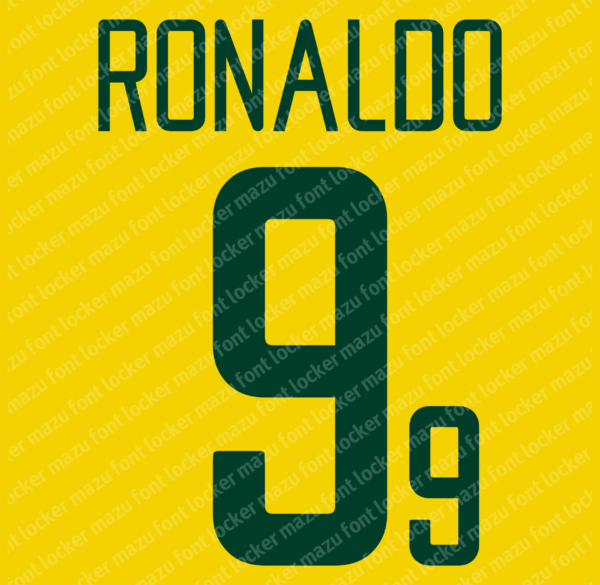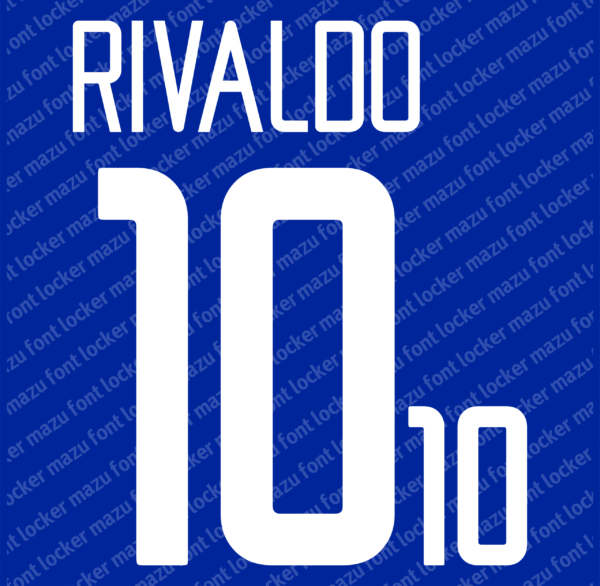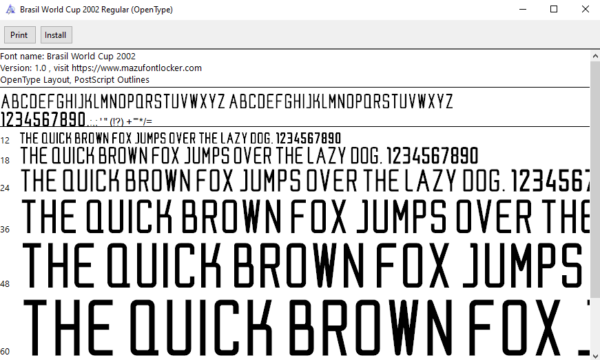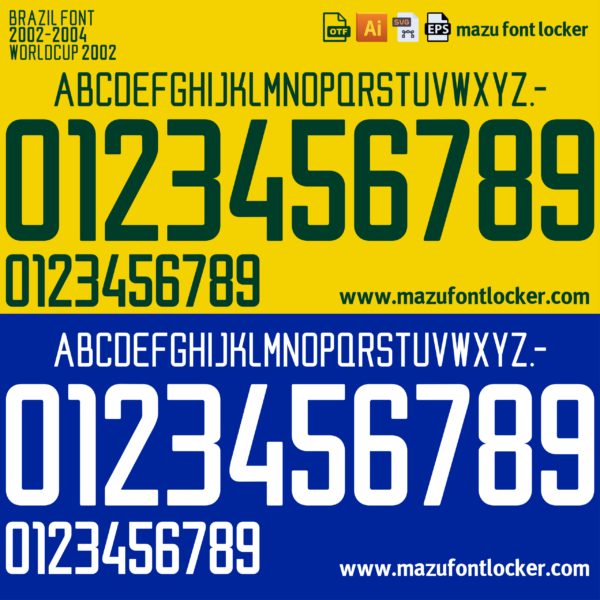
Brazil World Cup 2002 Font Vector – Legendary Canarinho Masterpiece
Download the Brazil World Cup 2002 Font Vector (AI, EPS, SVG, PDF, OTF, TTF) and unleash the bold, vibrant, and legendary match typography from Brazil’s unforgettable 2002 World Cup triumph. This font captures the iconic Yellow & Green lettering that defined the Seleção’s fifth world title.
Channeling the proud Brazilian spirit of the magical Japan/Korea campaign, it features the classic style worn by legends like Ronaldo Nazário, Ronaldinho, Rivaldo, Cafu, Roberto Carlos, and Kaká. Perfect for retro jersey mockups, football designs, and nostalgic Brazil World Cup art.
Brazil World Cup 2002 Font Vector – Canarinho Typeface
The Brazil World Cup 2002 Font Vector is a premium typeface that faithfully recreates the iconic lettering from the Brazilian National Team’s 2002 FIFA World Cup kit. This vector font kit captures the bold, vibrant, and legendary typography worn by the champions of the 2002 World Cup.
Designed for graphic designers, football historians, retro enthusiasts, and Brazil supporters, the Brazil World Cup 2002 Font Vector delivers exceptional authenticity for jersey mockups, vintage posters, fan merchandise, social media content, and nostalgic football projects.
Why Choose Brazil World Cup 2002 Font Vector
This font set is prized for its historical accuracy and meticulous detail. Every glyph has been carefully recreated to match the official typography used on Brazil’s legendary 2002 World Cup home and away kits.
The letterforms are bold, slightly condensed, and feature strong sans-serif characteristics with clean, sharp edges — delivering the powerful and joyful aesthetic of the 2002 Seleção Brasileira.
The numerals boast athletic proportions, sharp contours, and balanced weight, perfect for replicating the legendary player names and squad numbers from the 2002 World Cup campaign.
• Full uppercase A–Z and numbers 0–9 in the official 2002 World Cup style
• Special CBF crest glyph for authentic number detailing
• Multilingual Latin support with diacritics
• Craft accurate Brazil 2002 World Cup jersey replicas and mockups
• Design nostalgic retro posters and vintage football campaigns
• Create exclusive Seleção merchandise with authentic 2002 flair
• Includes precise crest placement used under player numbers on the official kit
Brazil World Cup 2002 Campaign
The 2002 FIFA World Cup in Japan and South Korea will forever be remembered as one of Brazil’s most spectacular triumphs. Under the management of Luiz Felipe Scolari, the Seleção overcame early doubts to deliver a masterclass in attacking football. Led by the legendary trio of Ronaldo, Rivaldo, and Ronaldinho, Brazil marched through the tournament with flair, creativity, and undeniable talent.
Culminating in a thrilling 2-0 victory against Germany in the final at Yokohama International Stadium, Brazil secured their fifth World Cup title. The iconic yellow home kit with green accents and the famous CBF badge has become a symbol of Brazilian excellence and the beautiful game at its finest. This font recreation pays tribute to that golden generation and one of the most entertaining World Cup winning teams in history.